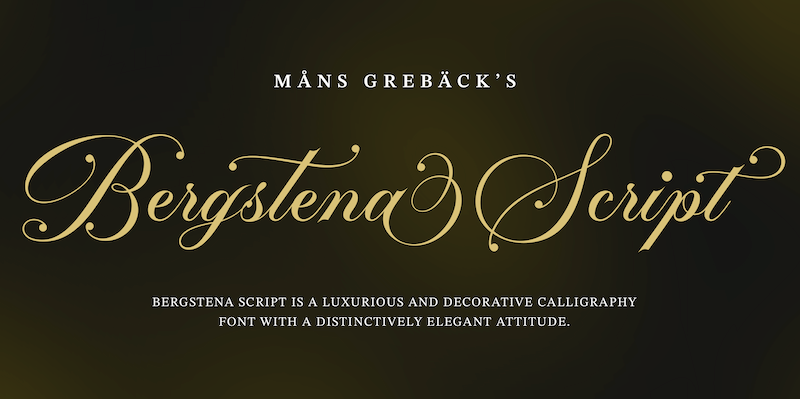
Preview and download Bergstena Script Font. Created by Måns Grebäck in Script Calligraphy styles with Free for personal use license.
NOTE: This font is for PERSONAL USE ONLY! To purchase a commercial license, visit: https://www.mansgreback.com/product/bergstena-script Bergstena Script is a luxurious and decorative calligraphy font with a distinctively elegant attitude. The uppercase letters are finely sculpted with ornate loops and sweeping curves, capturing the essence of formal penmanship and ornamental signage from the past. Meanwhile, the lowercase set flows with smooth rhythm, retaining a soft, legible structure. Each character feels carefully crafted, as if pulled from the nib of a master calligrapher�s pen. For questions, please visit https://mansgreback.com/faq |